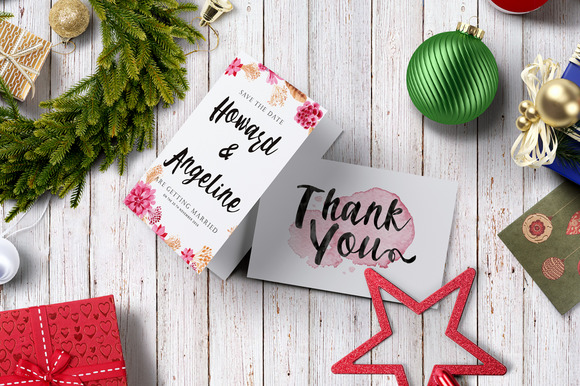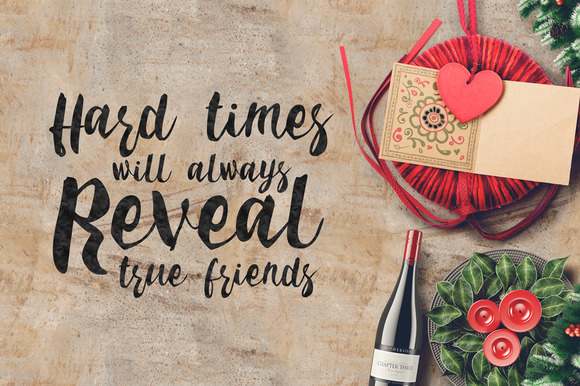
Cemporeng Script Font
About Cemporeng Script Font
Cemporeng Script comes with a selection of delightfully playful end-swashes. The alternative characters were divided into several OpenType features such as Stylistic Sets, Contextual Alternates, and Ligature. The OpenType features can be accessed by using OpenType savvy programs such as Adobe Illustrator and Adobe InDesign.